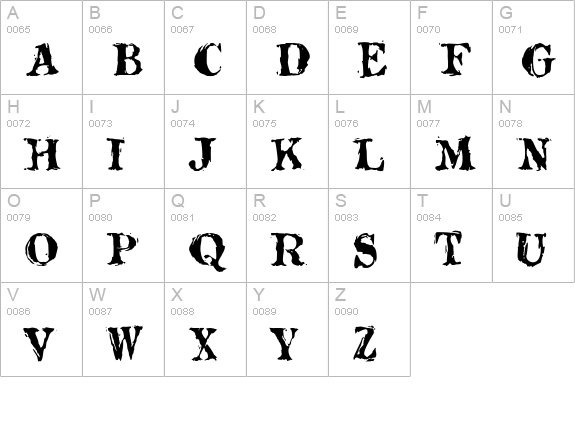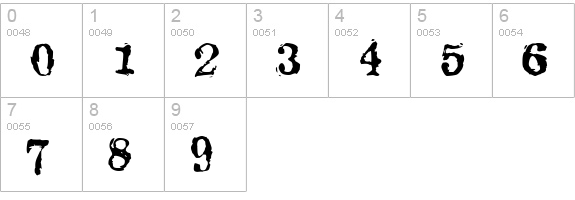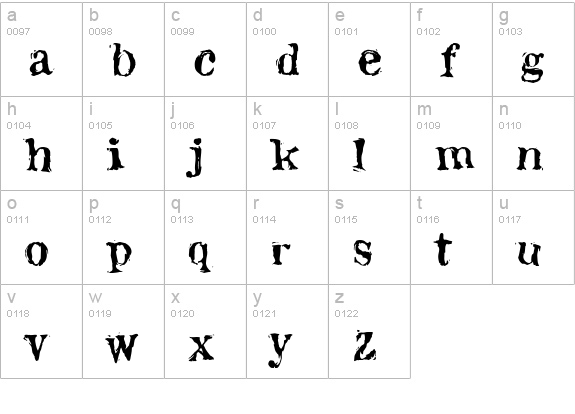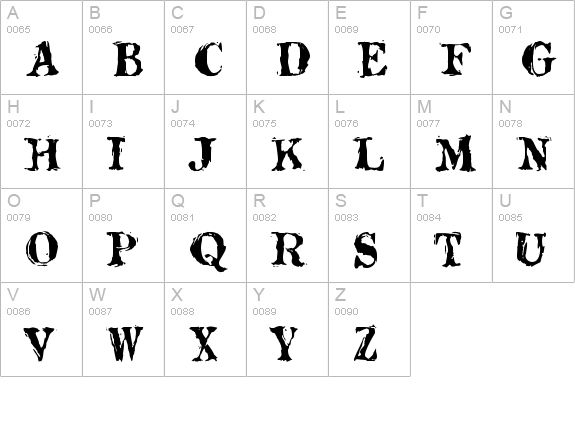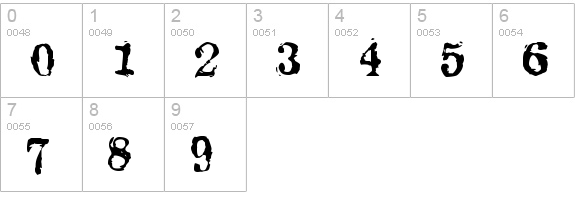
ToxicWaste Font Details
ToxicWaste font is a bold and edgy typeface that exudes a sense of danger and rebellion. Its jagged and distorted letterforms create a unique visual impact, making it perfect for projects that require an unconventional and daring aesthetic. This font is designed to captivate attention and leave a strong impression. With ToxicWaste font, your designs will stand out from the crowd and make a statement. Whether it's for posters, album covers, or branding materials, this font will add a touch of raw energy and attitude to your work. What's even better is that ToxicWaste font is completely free! Yes, you read that right. This amazing font is freely available to download at FontsMarket.com. It's a great opportunity to enhance your design arsenal without spending a penny. So why wait? Embrace the boldness of ToxicWaste font and unleash your creativity. Download it now from FontsMarket.com and let your designs make a powerful impact.